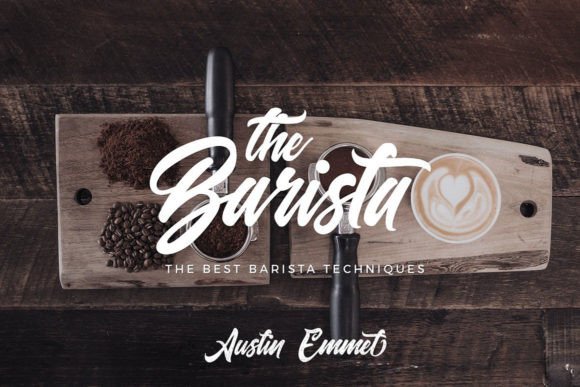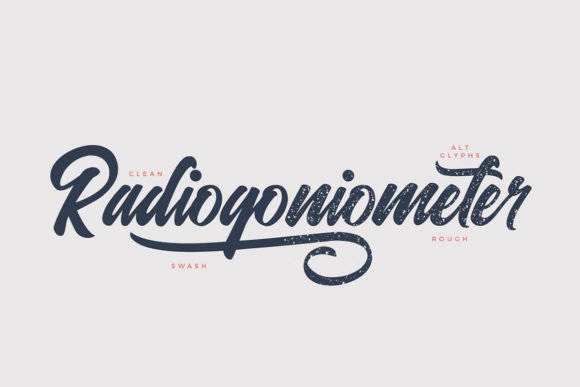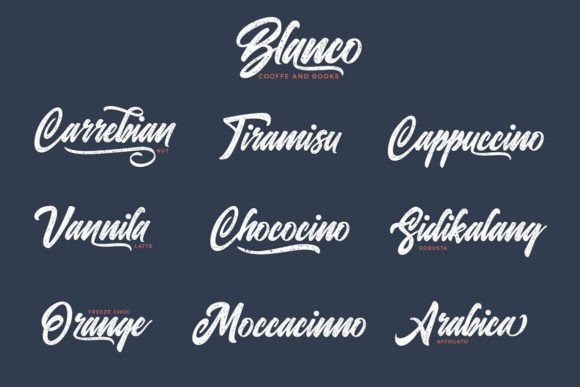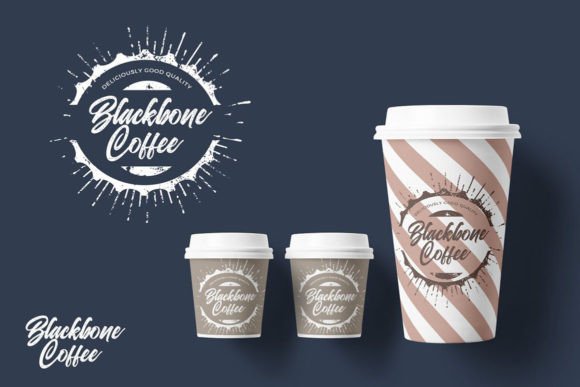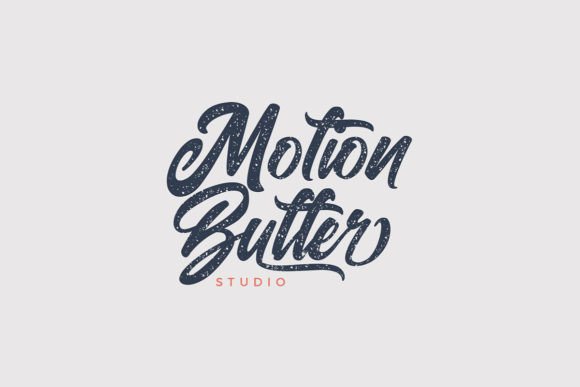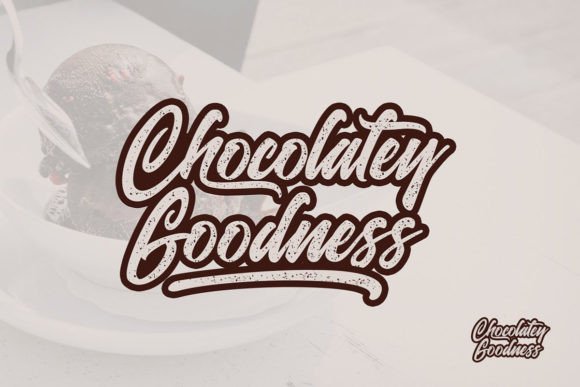
The Nostalgic Charm of Andamar Font
Remember the feeling of rummaging through your grandparents’ attic, uncovering old photographs and dusty letters that transport you to a bygone era? That’s the magic of the Andamar Font – a vintage script font that captures the essence of nostalgia and adds a touch of rugged charm to any design project.
Andamar Font is a unique blend of bold and uneven strokes, giving it a hand-drawn quality that’s reminiscent of a bygone era. The distressed texture adds a touch of authenticity, making it perfect for designers who want to add a vintage flair to their logos, labels, and packaging. With its raw, unpolished charm, the Andamar Font is a valuable tool for designers who want to evoke emotions and create a sense of connection with their audience.
Andamar Font Key Features
- Unique Characteristics: This font features a unique blend of modern and traditional elements, making it suitable for a wide range of designs, from contemporary to classic.
- Font Weight: The font offers a range of weights, from Light to Bold, allowing users to adjust the font’s intensity to suit their design needs.
Andamar Font Review
Overall, I found the Andamar Font to be a decent addition to any design project. Here are some of its standout features:
- ✨ Highly legible: The font is designed to be easy on the eyes, making it perfect for long blocks of text.
- ✨ Versatile: Andamar Font comes in a range of weights and styles, allowing you to mix and match to suit your design needs.
- ✨ Unique flair: The font’s distinctive design elements give it a touch of sophistication and elegance.
- ⚠️ Limited language support: Andamar Font may not support all languages, which could be a drawback for international projects.
- ⚠️ May not be suitable for bold headlines: While the font is versatile, it may not be the best choice for bold, attention-grabbing headlines.
Overall, I think Andamar Font is a solid choice for designers who want a clean, elegant font that’s easy to read. While it may not be perfect for every project, it’s definitely worth considering for a range of design applications.
Getting the Most Out of Andamar Font
To get the most out of Andamar Font, use it for:
– Titles and headings to add a touch of elegance.
– Branding materials such as logos and business cards.
– Infographics and data visualizations to add a professional touch.
Andamar Font is commonly used for:
– Luxury brands and high-end products.
– Creative and artistic projects.
– Business and professional presentations.
Alternatives to Andamar Font
Lato is a modern sans-serif font that is highly legible and versatile. It is suitable for both body text and headlines. Lato is a great alternative to Andamar Font as it has a similar clean and minimalistic design. It is also highly customizable, making it a popular choice among designers.
Comparison to Andamar Font: Lato is more geometric and modern, while Andamar Font has a more traditional and elegant feel. Lato is also more suitable for digital use, while Andamar Font is more commonly used in print media.
Montserrat is a geometric sans-serif font that is highly versatile and suitable for a wide range of designs. It is a great alternative to Andamar Font as it has a similar urban and modern feel. Montserrat is also highly customizable and has a wide range of weights and styles.
Comparison to Andamar Font: Montserrat is more geometric and modern, while Andamar Font has a more traditional and elegant feel. Montserrat is also more suitable for digital use, while Andamar Font is more commonly used in print media.
Merriweather is a classic serif font that is highly legible and suitable for body text. It is a great alternative to Andamar Font as it has a similar elegant and traditional feel. Merriweather is also highly customizable and has a wide range of weights and styles.